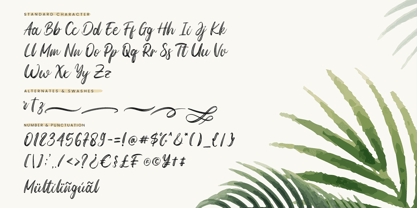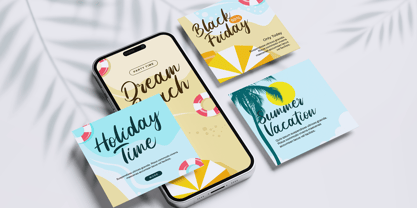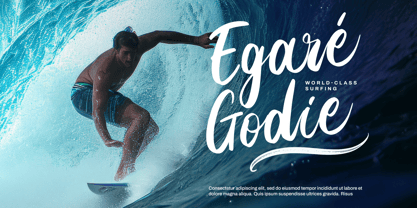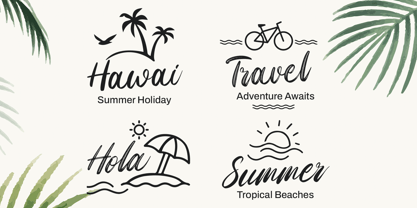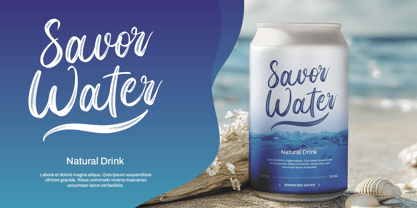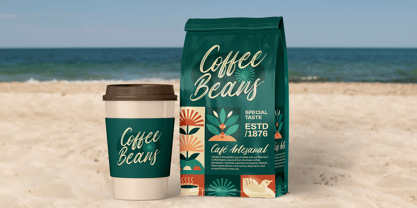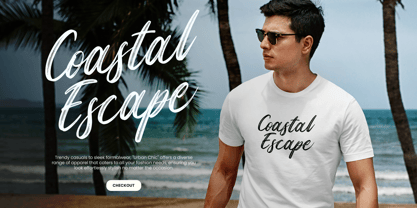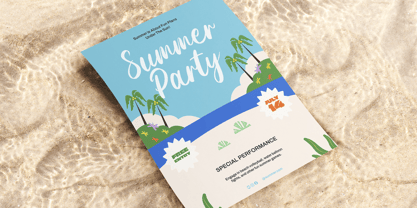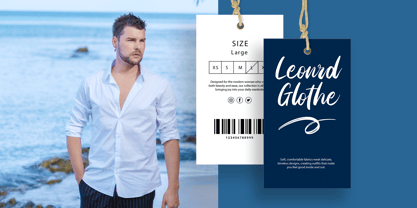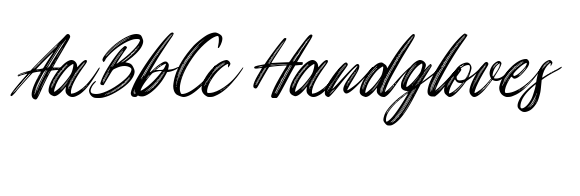
Bellustro
by Agny Hasya Studio
The Bellustro Font Family was designed by Firman Maulana and published by Agny Hasya Studio. Bellustro contains 4 styles and family package options. More about this family
Bellustro is a fresh and expressive handwritten brush font, designed for consistency and artistic authenticity.
Its natural, hand-drawn strokes make it perfect for branding, social media, invitations, and creative projects that need a personal or business touch.
Featuring two versatile styles, Bellustro Regular and Bellustro Clean, including an Italic version, Swashes, and alternates, this typeface adapts effortlessly and is suitable for digital and print applications.
Whether making a statement or adding subtle elegance, Bellustro delivers a captivating typographic experience.
Designers: Firman Maulana
Foundry: Agny Hasya Studio